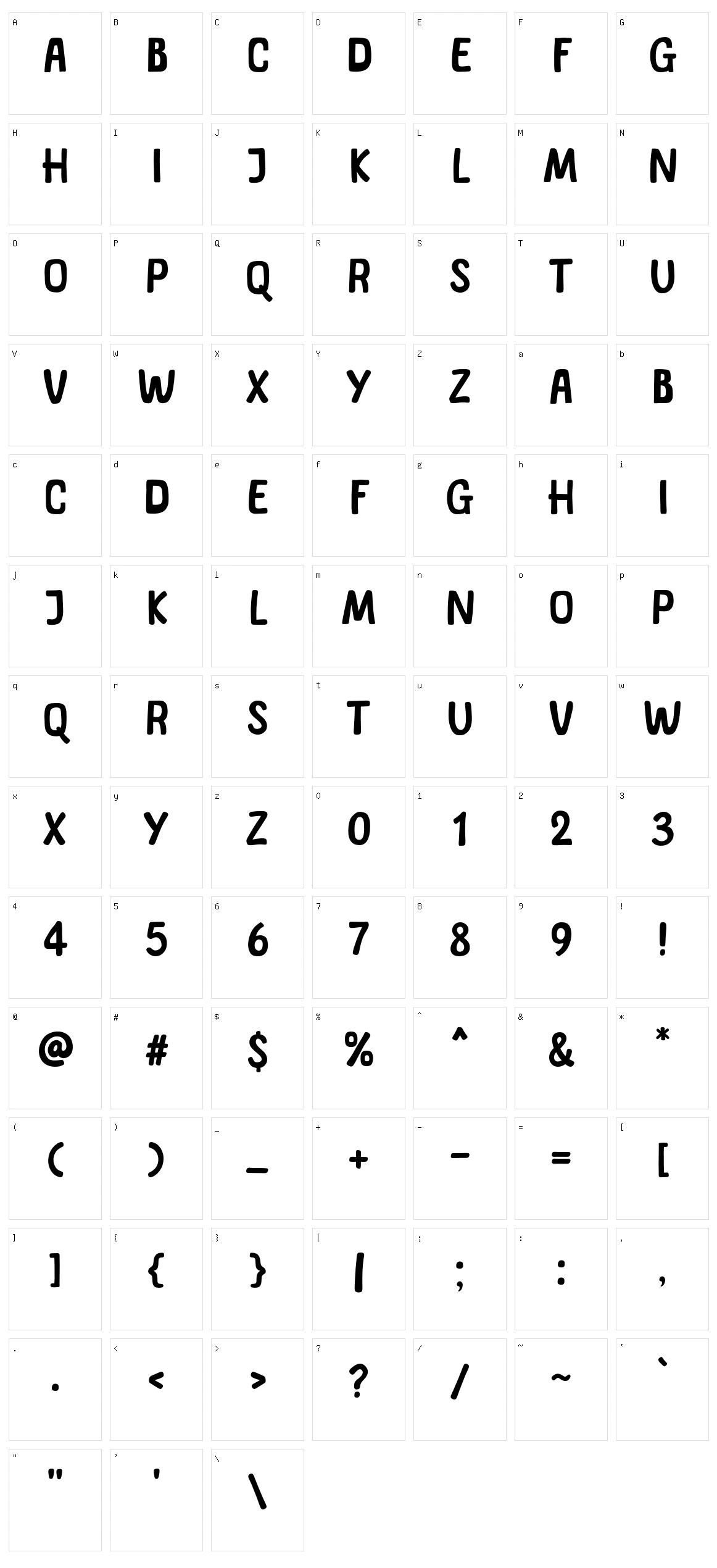
The free font Playgram is carefully designed by Khurasan, showcasing a thoughtful balance of creativity and usability and falls under the Cartoon font style. When you download the ZIP file, it contains only 602.96 KB of font files, making it lightweight and quick to download. Please review the license details below to understand permitted usage and distribution rights. If license information is not available, we recommend using this font for personal projects only or contacting the author directly for commercial usage permissions.